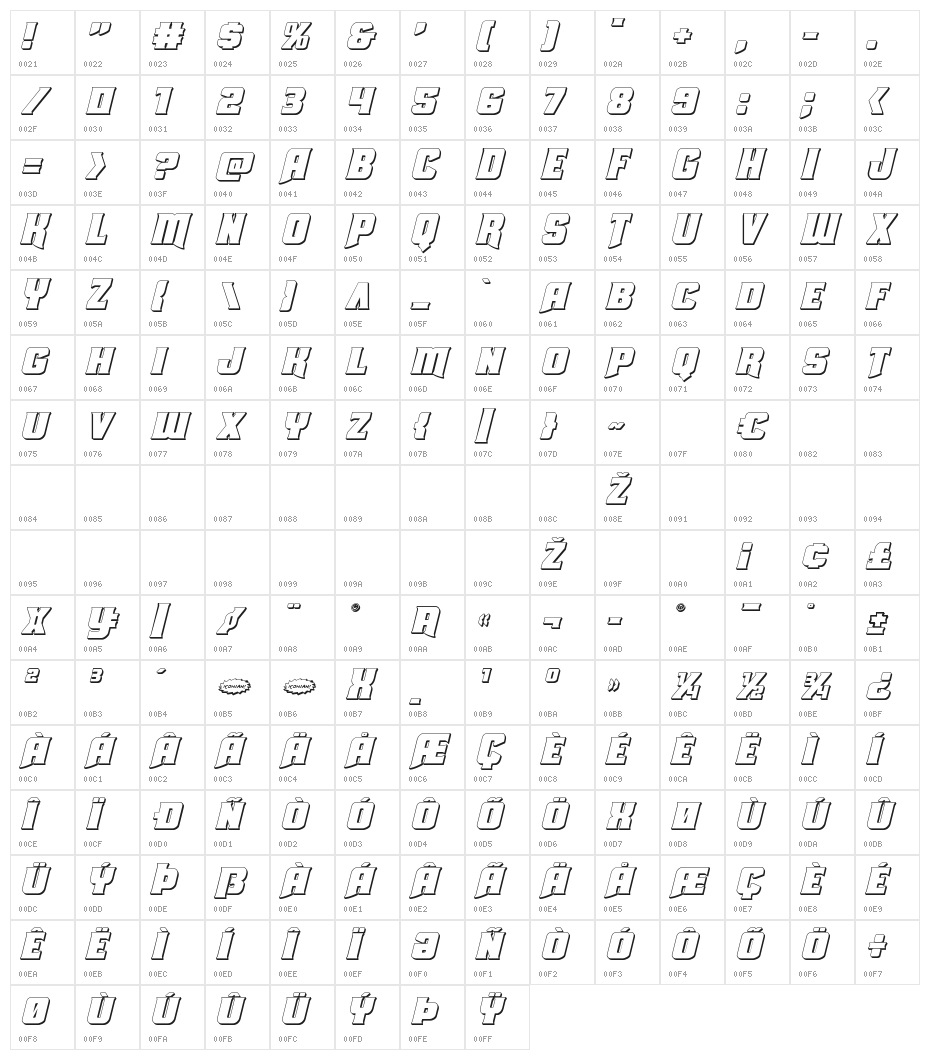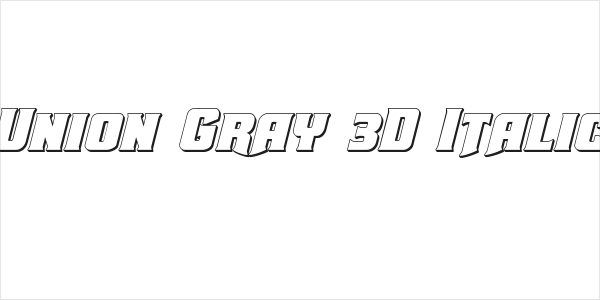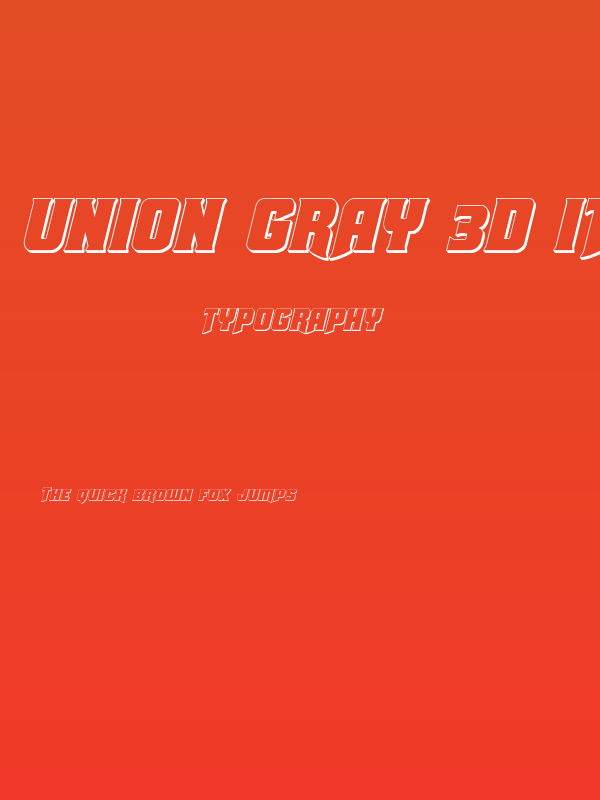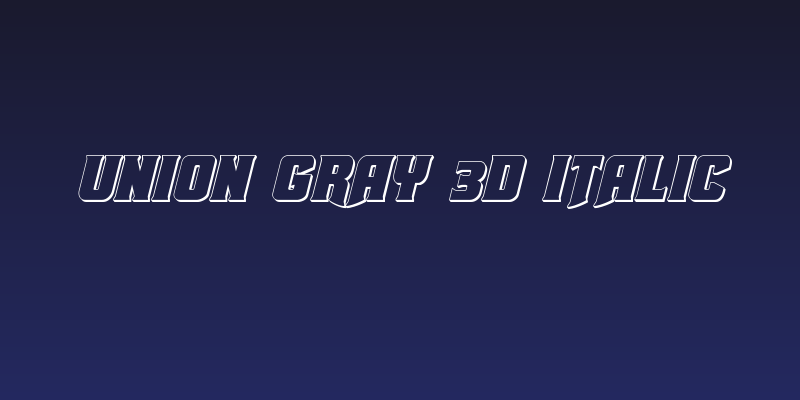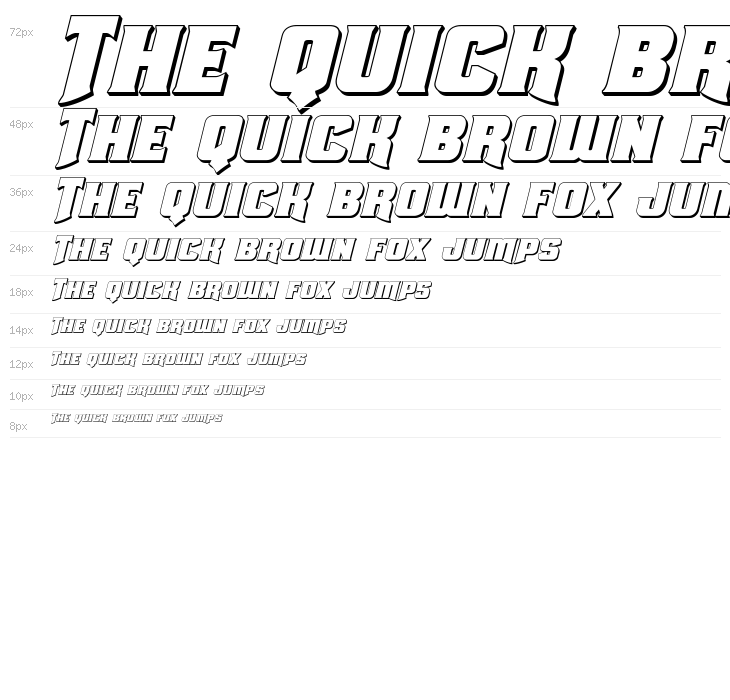
Union Gray 3D Italic Font
Union Gray 3D Italic Description
This font features a bold, three-dimensional design with an italic slant, giving it a dynamic and modern appearance. The characters are outlined, creating a shadow effect that enhances the 3D illusion. The uppercase and lowercase letters maintain a consistent style, with sharp angles and clean lines. The numerals and special characters are designed to match the bold and impactful style of the alphabet, making this font suitable for eye-catching designs. Its unique style makes it ideal for projects that require a strong visual impact.
| Proposed Projects | Ideal for posters, headlines, logos, and any design needing a bold, impactful look. |